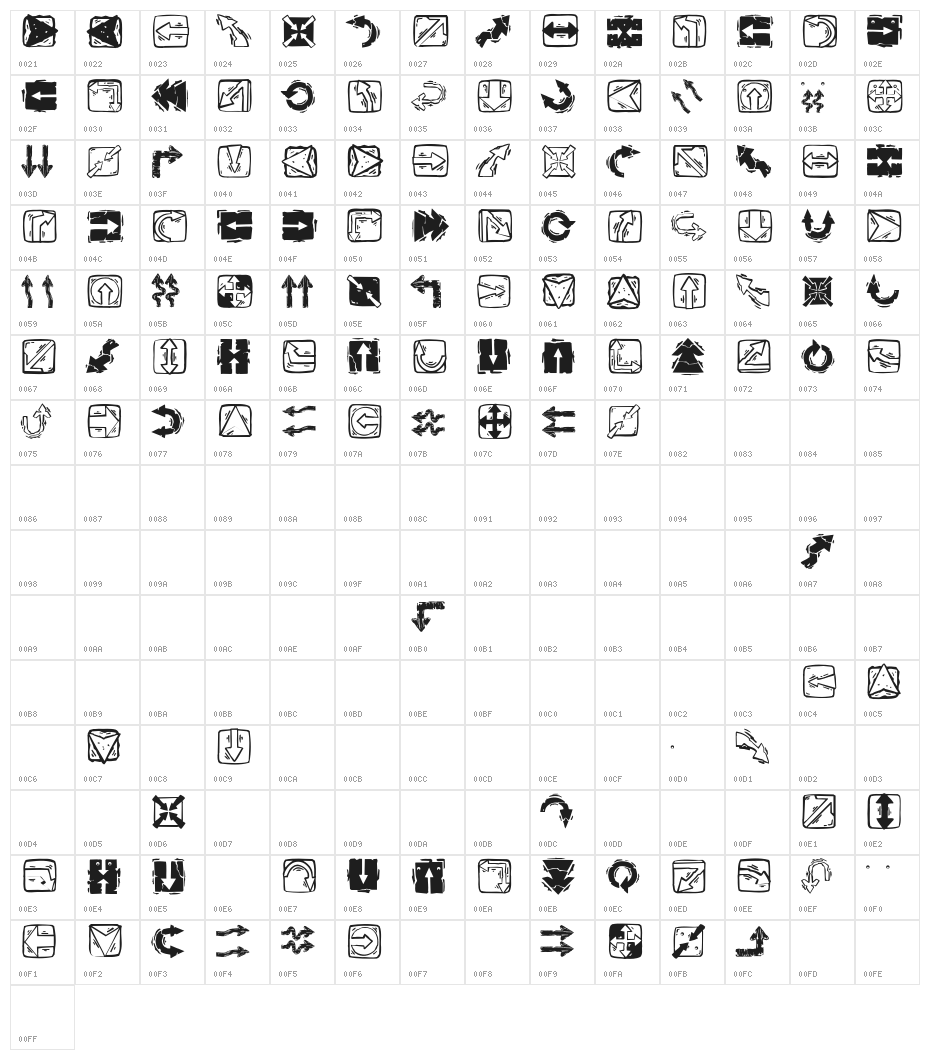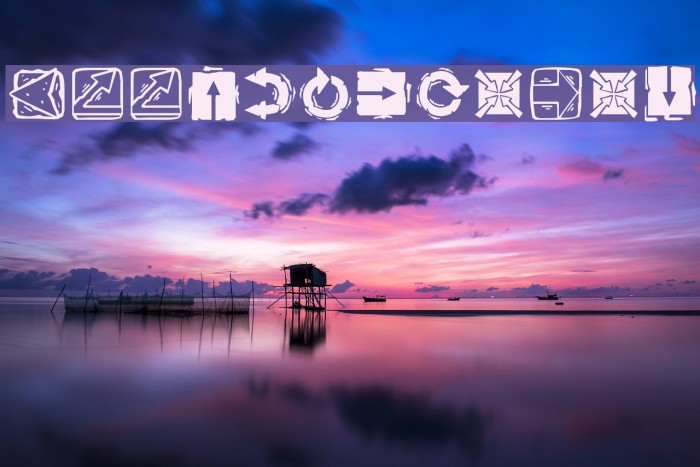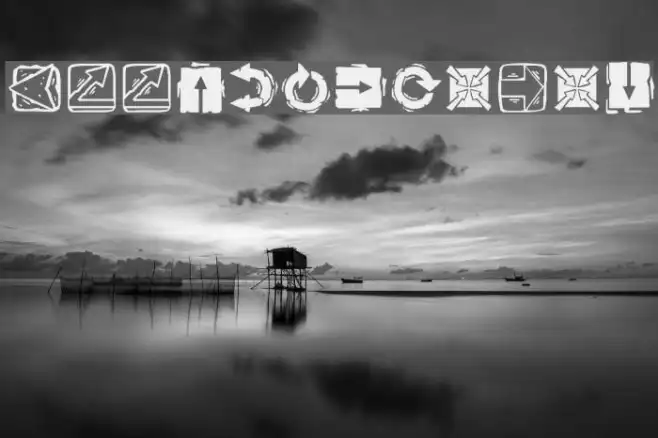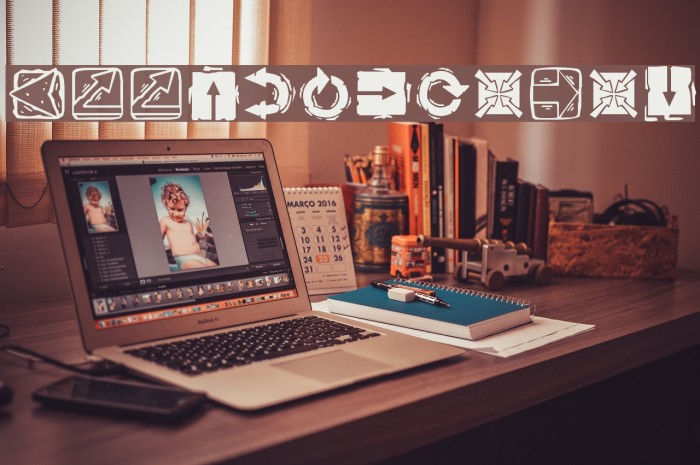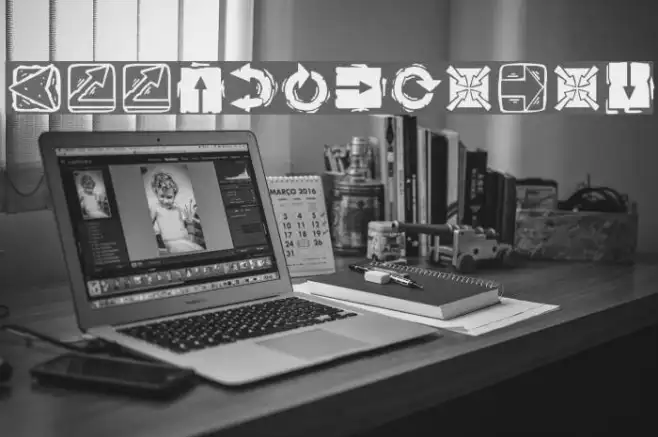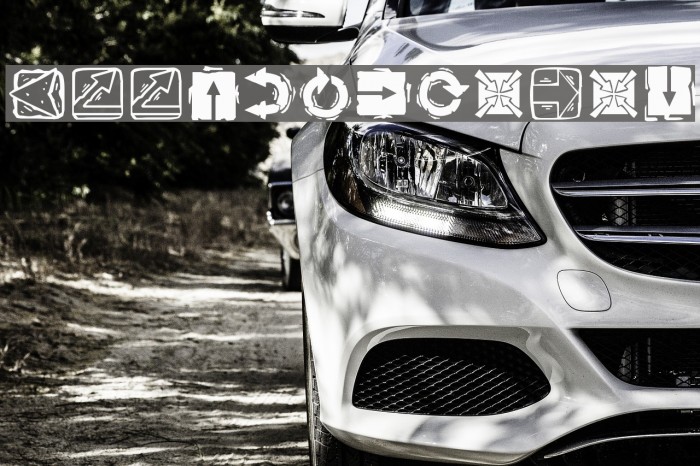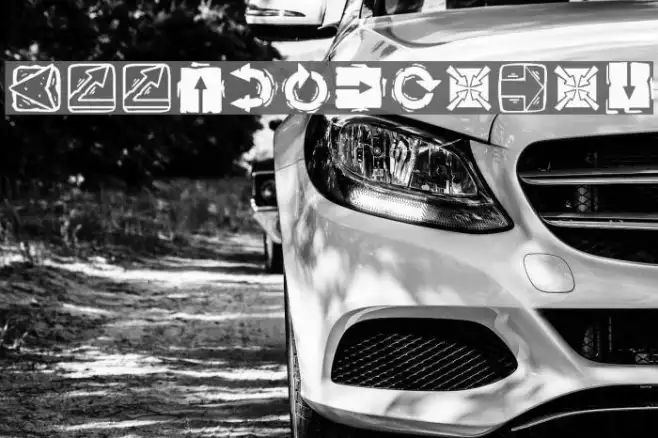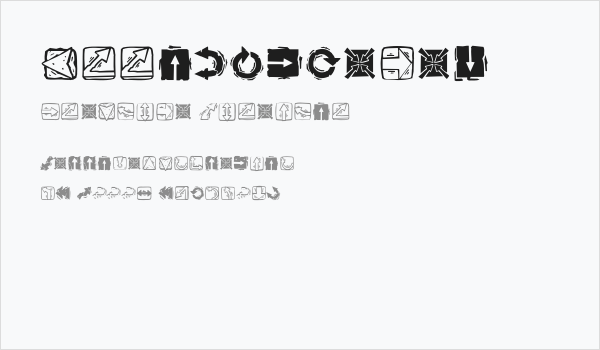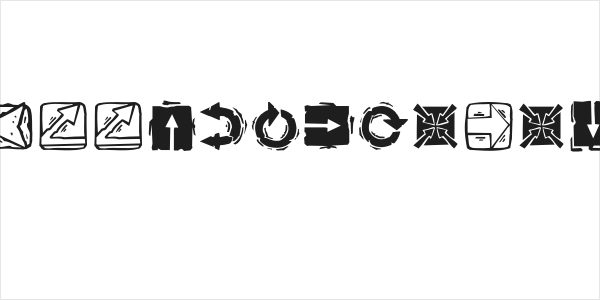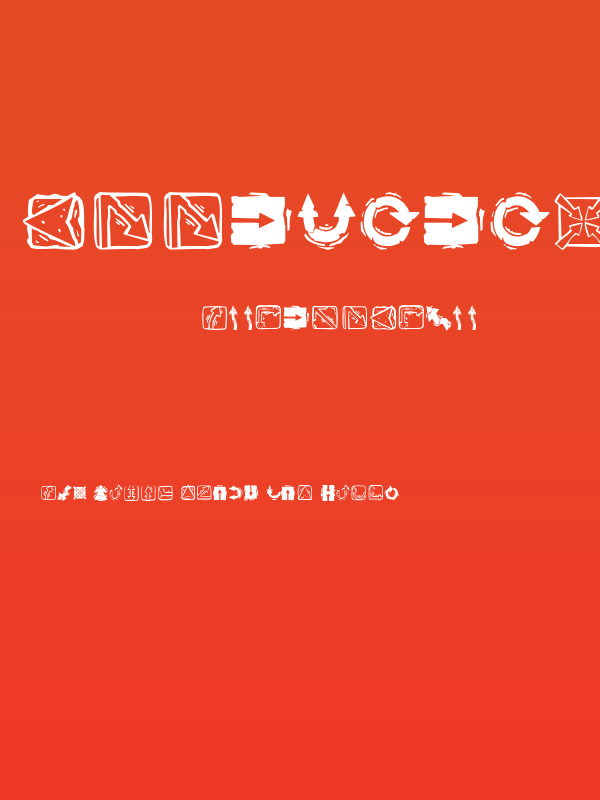
ArrowsOSeven Font
ArrowsOSeven Description
A decorative display font composed entirely of hand-drawn arrow symbols within rough, sketchy square frames, featuring a variety of arrow directions and styles with a distressed, grunge-like appearance.
| Overall Style | Decorative, Grunge, Hand-drawn |
| Use Case | Icons, Decorative elements, Thematic graphics |
| Proposed Projects | Infographics, signage, creative presentations, posters, navigation interfaces, educational materials. |